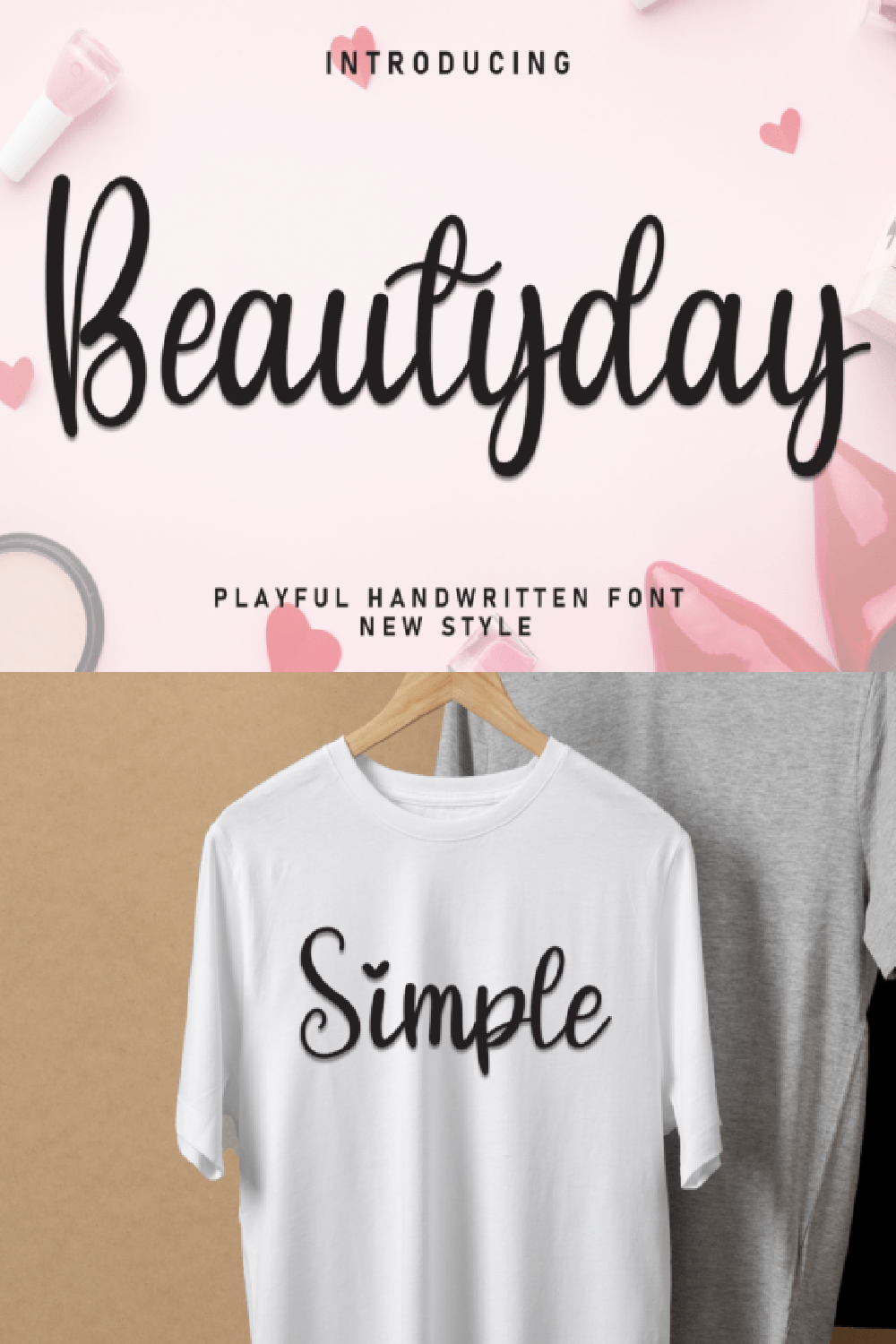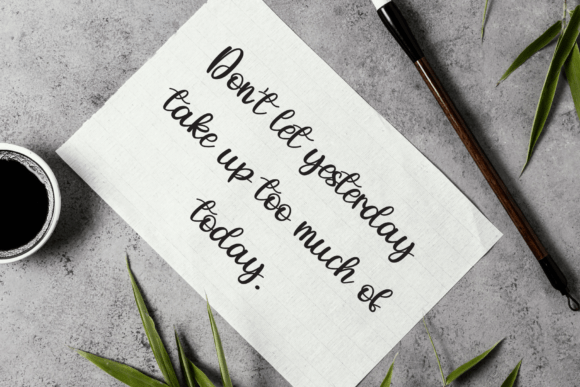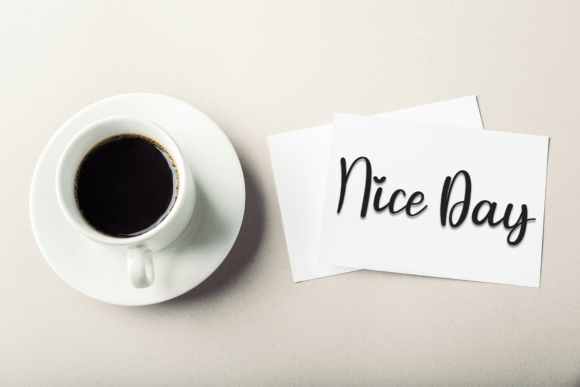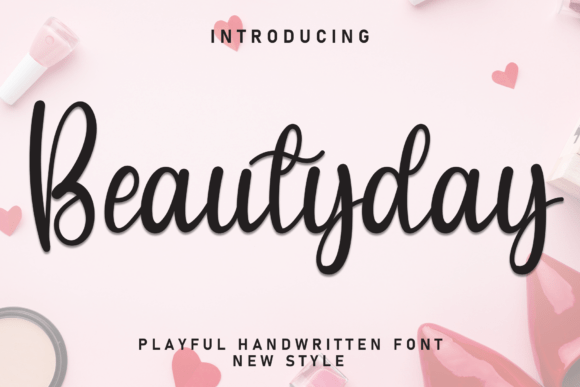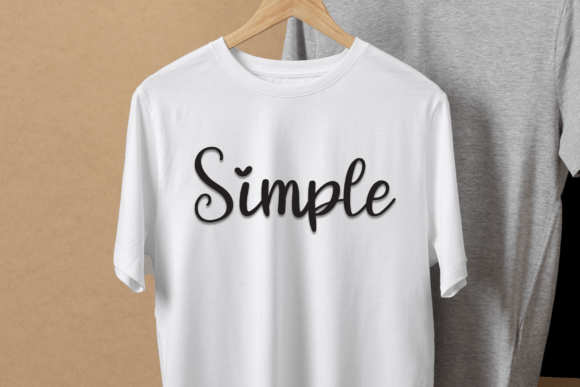
Beautyday Font: A Cute Handwritten Font for Wedding & Cricut Crafts
About the Beautyday Font
Elevate your designs with Beautyday Font, a font that combines sophistication with readability. Introducing an affable and tender hand-sketched display font that effortlessly combines charm and cheerfulness. Infused with an endearing personality, this font is an ultimate choice for crafting wedding stationery, greeting cards, or any design project that craves a dash of joviality. This fun-loving font instills a delightful touch, thus making your creations come alive with its originality and warmth.